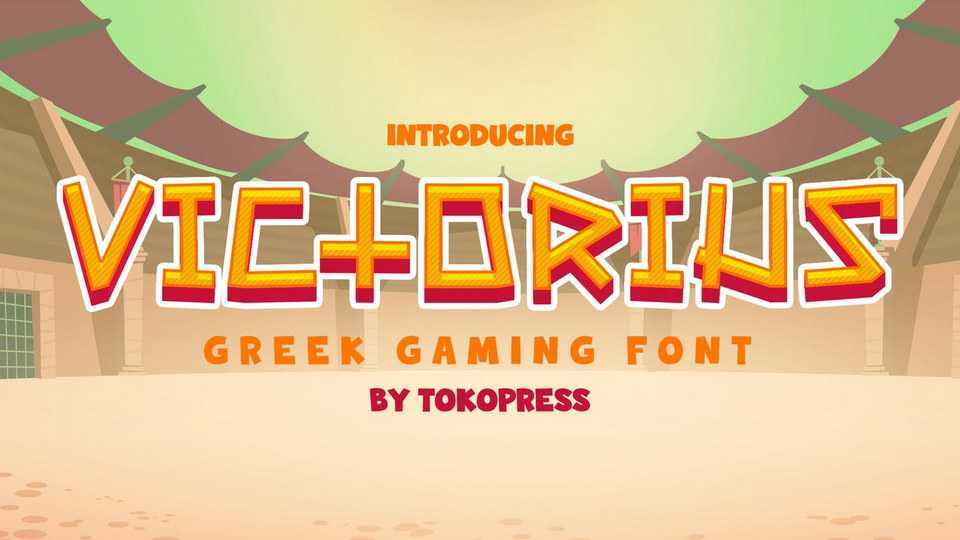
Download Victorius font, a gaming typeface. Ancient Greek and mythology still keep us in awe. The vast story of heroes and monster, their dynamic, war, and alliance still have plenty to be digging on.